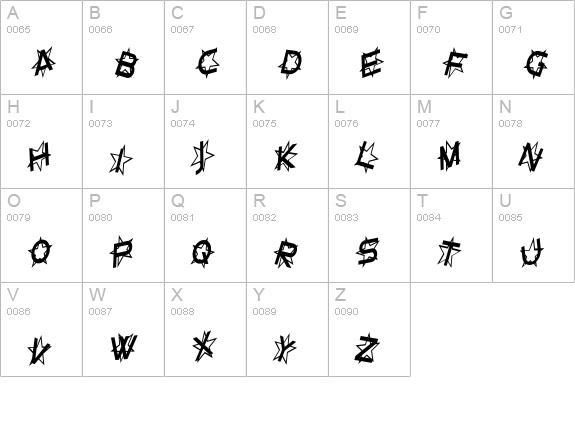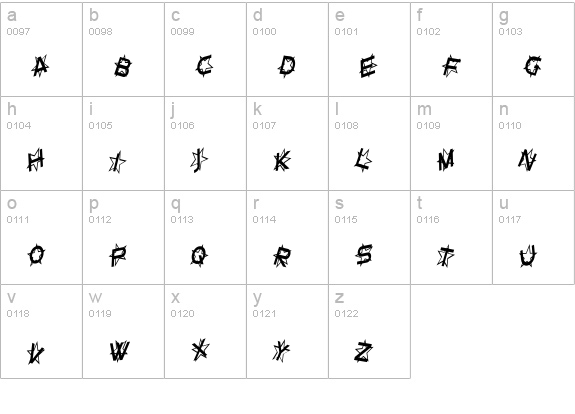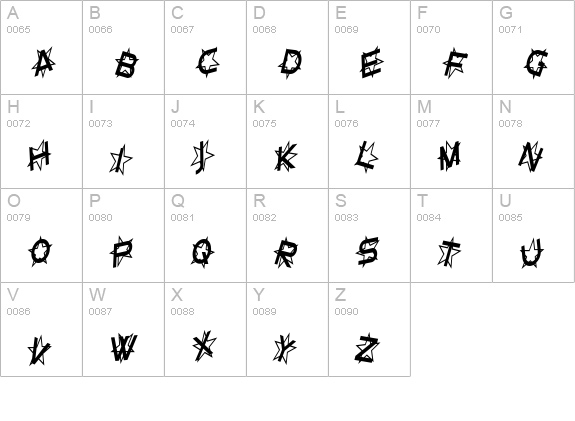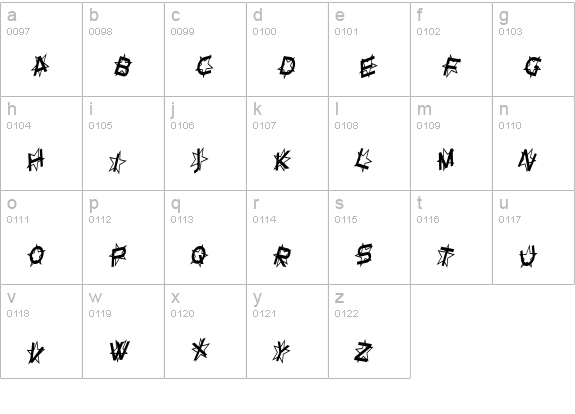
SF Star Dust Condensed Italic Font Details
SF Star Dust Condensed Italic is a distinctive, condensed-width, italic variant in the SF typeface family \xE2\x80\x94 well suited to design and typography projects.
SF Star Dust Condensed Italic font is a modern and stylish typeface that is perfect for adding a touch of elegance to any design project. Its condensed and italicized form gives it a sleek and sophisticated look, making it ideal for headlines, titles, and branding materials. This font features a unique combination of sharp edges and smooth curves, resulting in a visually striking and dynamic appearance. The condensed design allows for maximum impact, while the italicized style adds a sense of movement and flair. SF Star Dust Condensed Italic font is not only visually appealing but also highly versatile. It can be used in a wide range of design applications, including websites, posters, magazines, logos, and more. Its flexibility allows it to adapt to various design themes and concepts, making it a valuable asset for designers and creatives. What makes SF Star Dust Condensed Italic font even more remarkable is that it is freely available to download at FontsMarket.com. This means that you can easily access and use this font in your projects without any cost. Whether you are a professional designer or a design enthusiast, this free font is a valuable resource that allows you to enhance your creations without breaking the bank. In conclusion, SF Star Dust Condensed Italic font is a visually striking and versatile typeface that adds a touch of elegance to any design project. Its condensed and italicized form, combined with its unique combination of sharp edges and smooth curves, creates a visually stunning and dynamic appearance. Best of all, it is freely available to download at FontsMarket.com, making it a must-have font for designers and creatives alike.